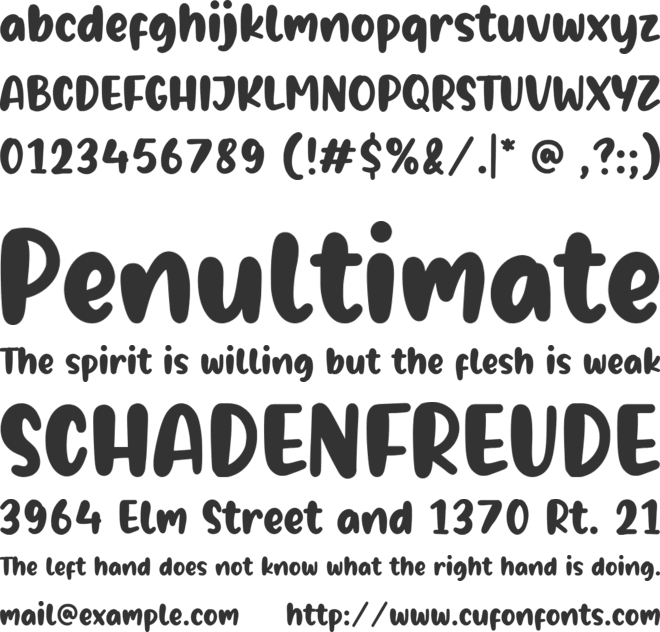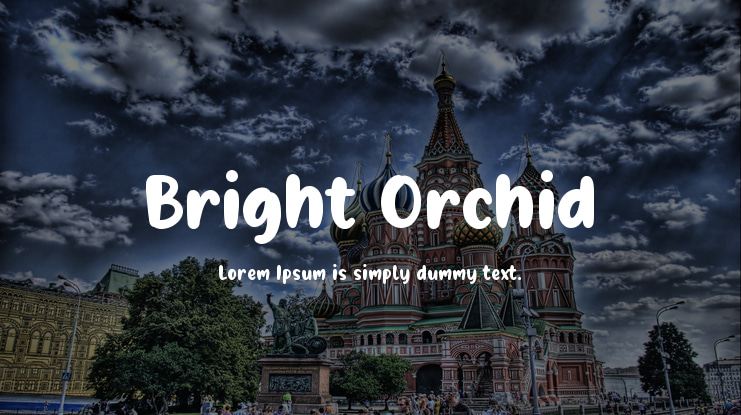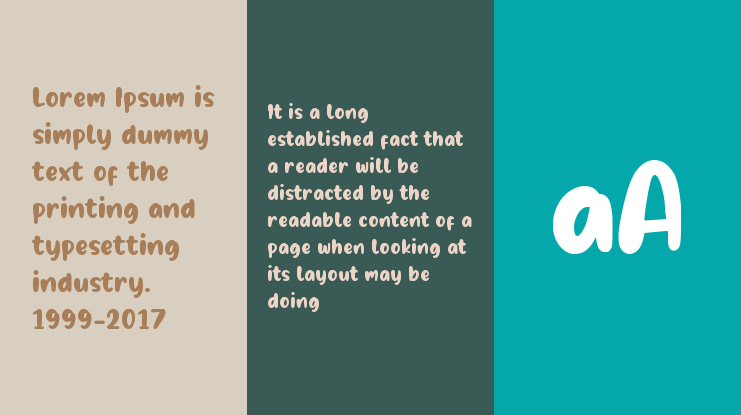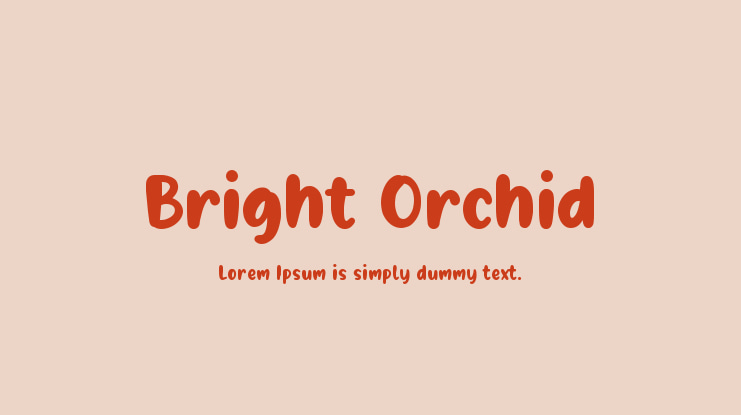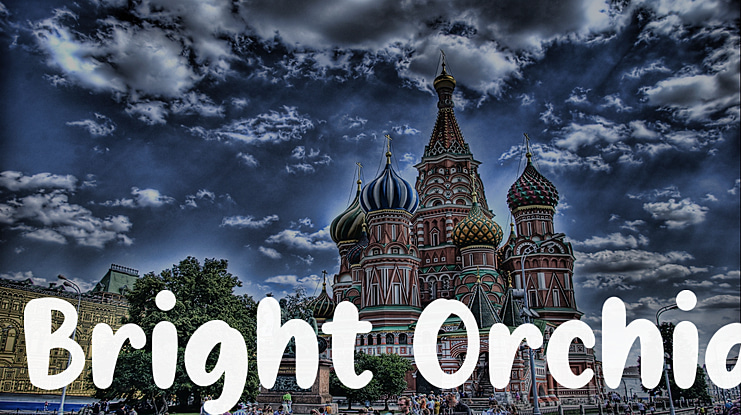
Bright Orchid Font
Balpirick Studio
Introducing by Balpirick Studio.
Proudly Present, Bright Orchid Font.
Bright Orchid is a Bold Handbrushed Font.
Bright Orchid is perfect for product packaging, branding project, megazine, social media, wedding, or just used to express words above the background.